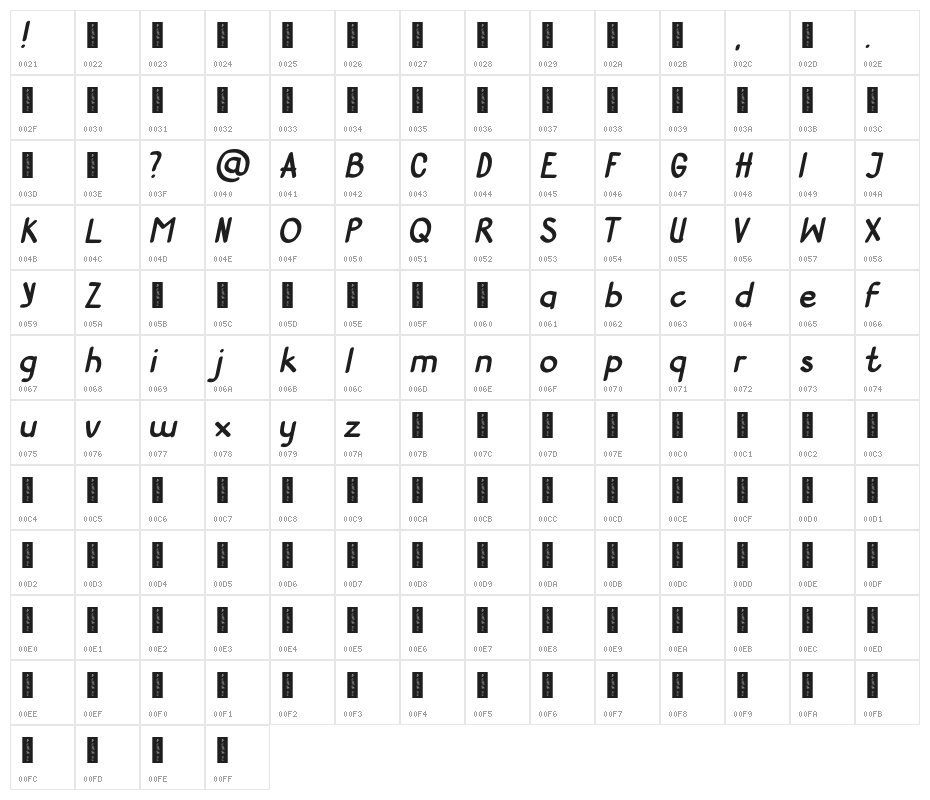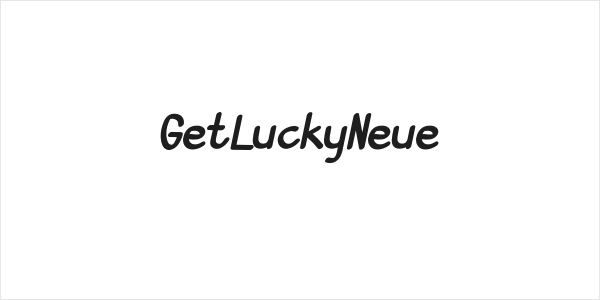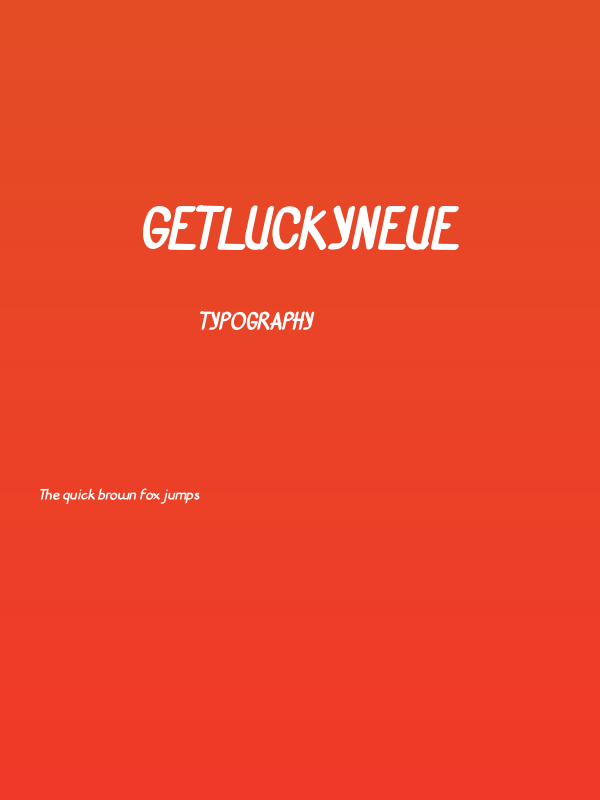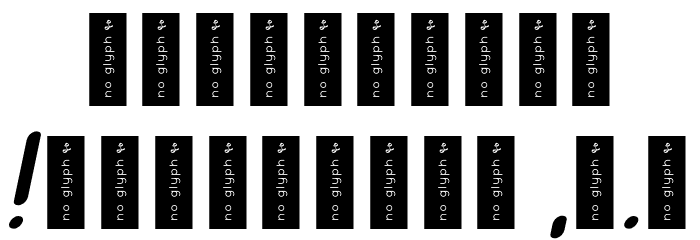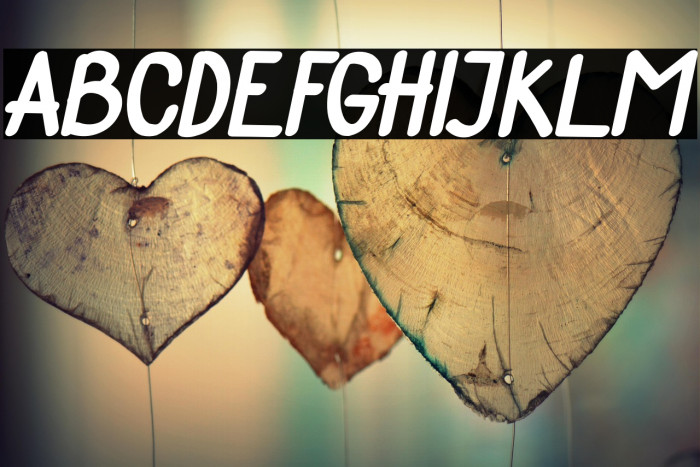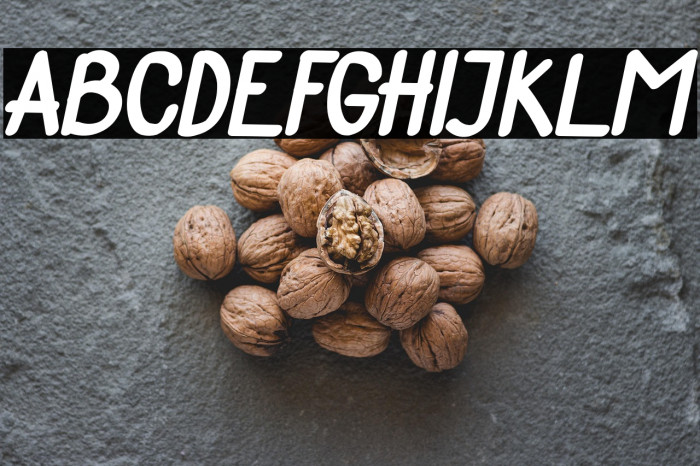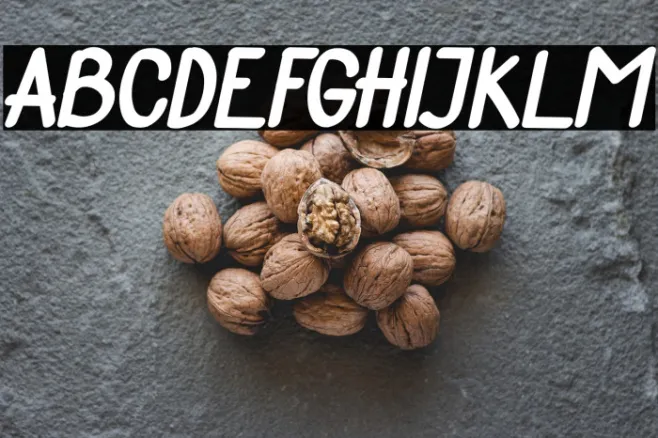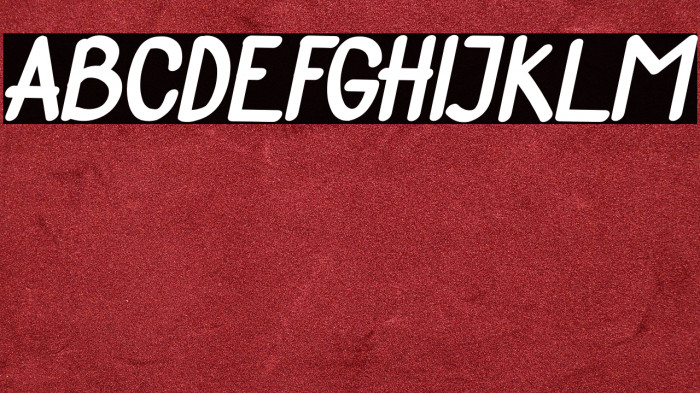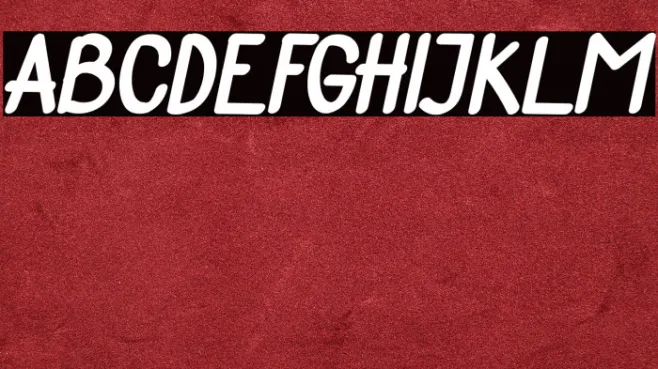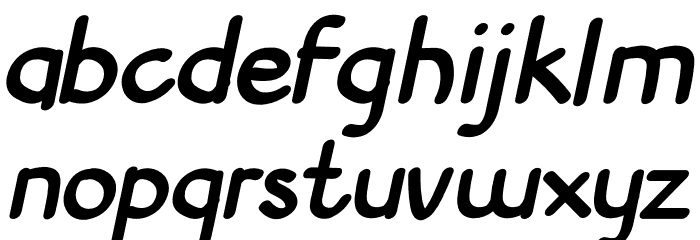
GetLuckyNeue Font
GetLuckyNeue Description
This font features a playful and casual style with a handwritten appearance. The letters are slightly slanted, giving a dynamic and energetic feel. The strokes are bold and rounded, providing a friendly and approachable look. The uppercase and lowercase letters maintain a consistent style, with smooth curves and a uniform thickness. The font lacks certain special characters, which may limit its use in some contexts. Overall, it exudes a modern and informal vibe, suitable for projects that require a personal touch.
| Use Case | Logos, Headlines, Informal Text |
| Proposed Projects | Ideal for greeting cards, children's books, casual branding, and social media graphics. |